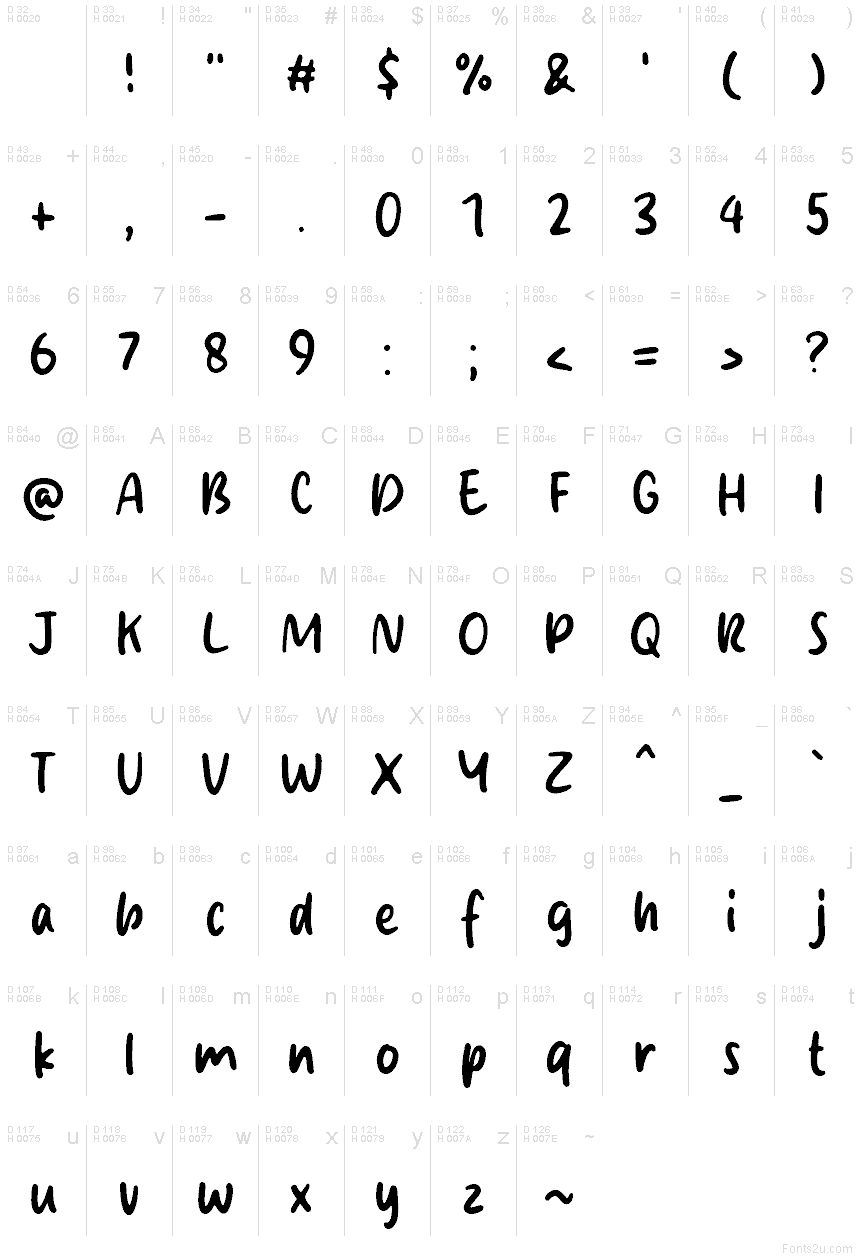
Shine Flower
Shine Flower font by MJType is a smooth handwritten font with an organic flow, casual elegance, and expressive character. Its relaxed aesthetic brings a modern informal tone that makes it aesthetically pleasing and easily readable.
This free handwritten font can find use in logos, personal signatures, invitations, greeting cards, branding designs, quotes for social media posts and posters.